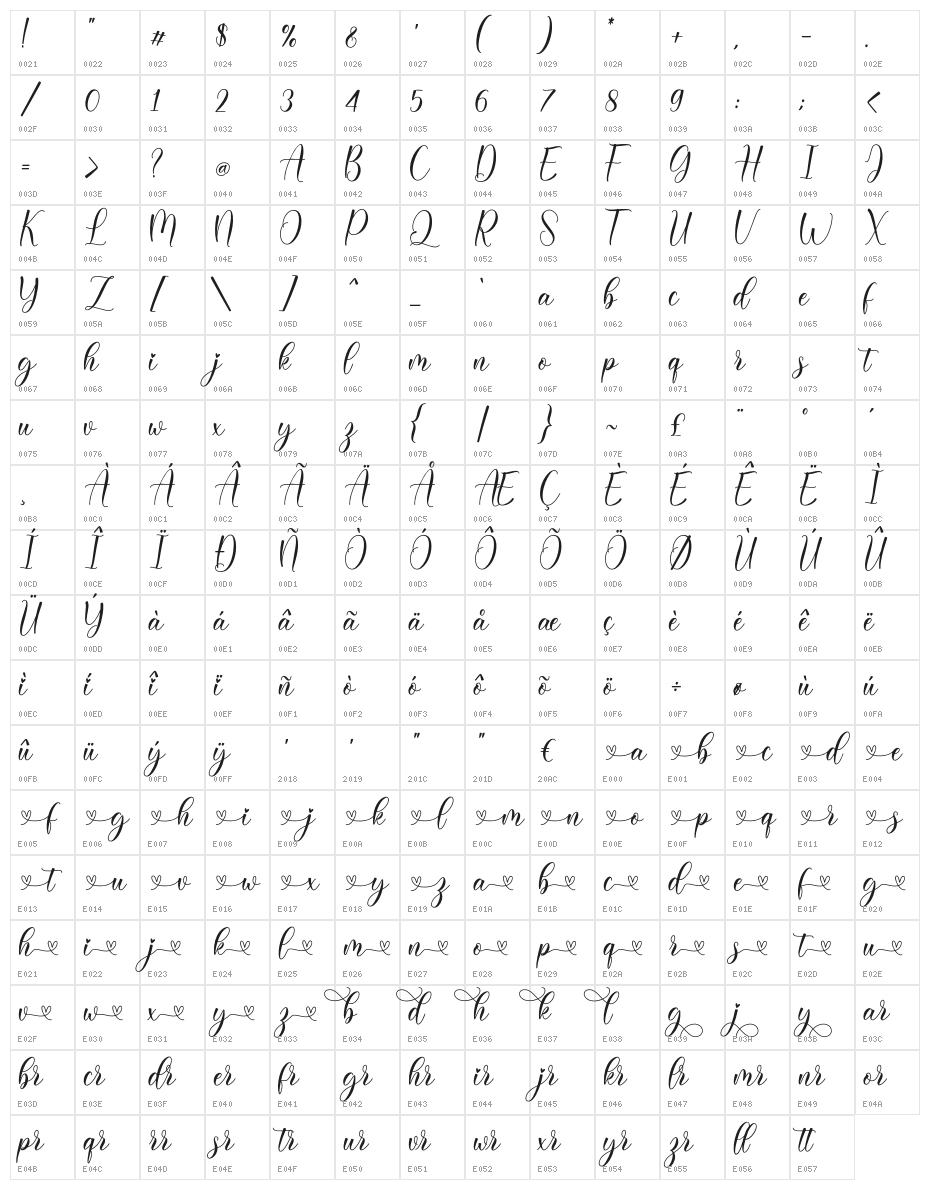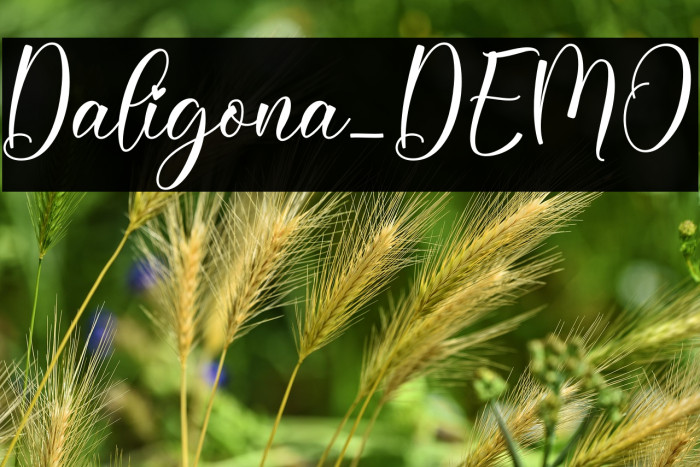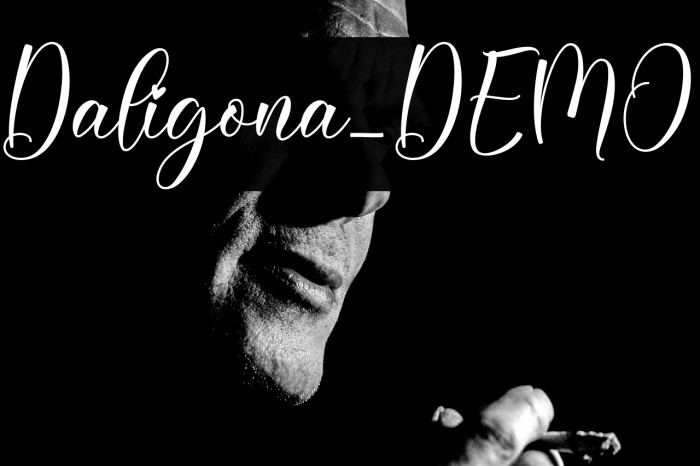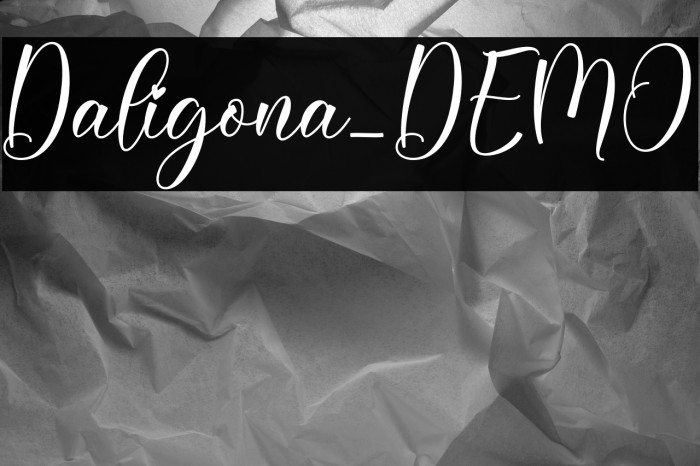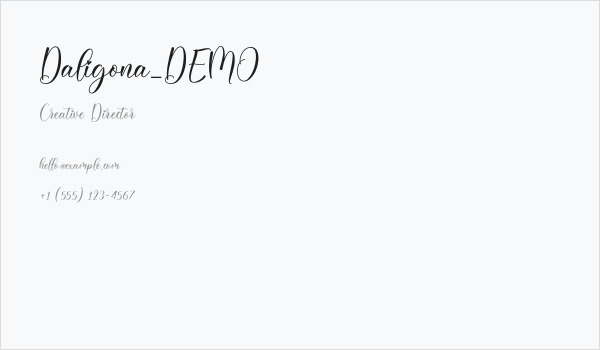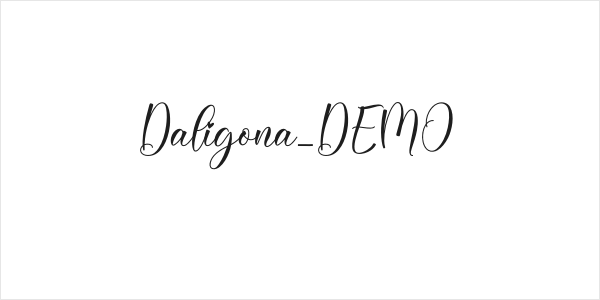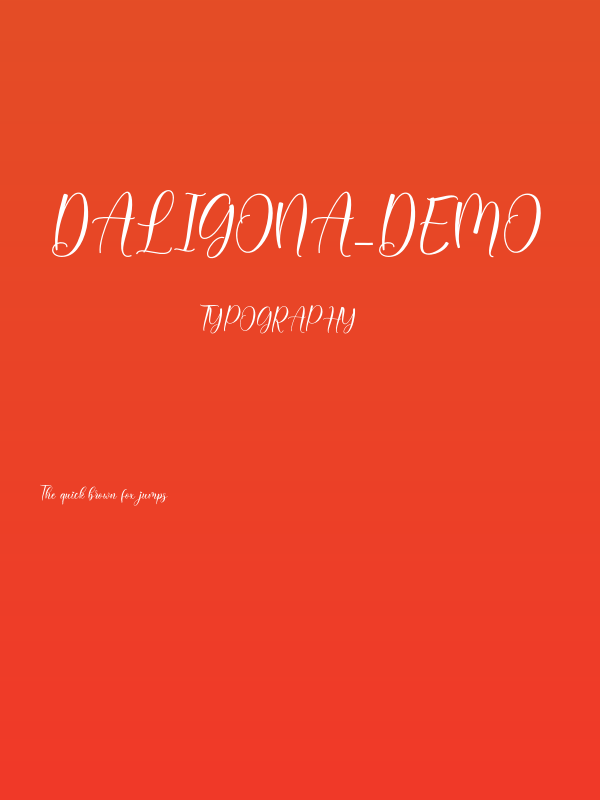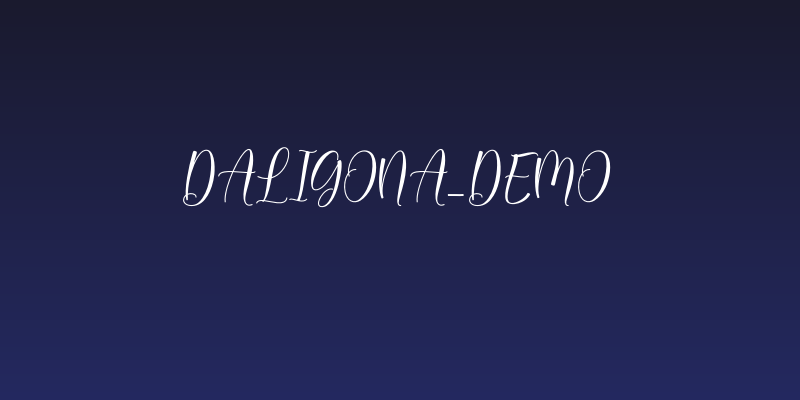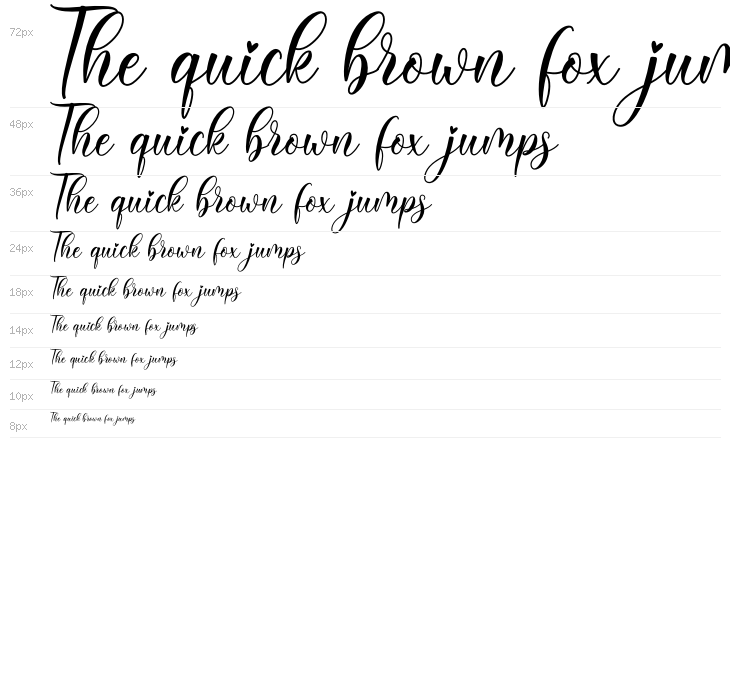
Daligona_DEMO Font
Daligona_DEMO Description
This font features an elegant and flowing script style, characterized by its smooth, cursive strokes and graceful curves. The uppercase letters are tall and slender, with a slight slant that adds a dynamic feel. The lowercase letters maintain a consistent flow, with some letters featuring loops and flourishes that enhance its decorative appeal. The numerals are styled to match the script, maintaining the same fluidity and elegance. Special characters are designed with similar attention to detail, ensuring they blend seamlessly with the overall aesthetic. This font exudes a sense of sophistication and charm, making it ideal for projects that require a touch of elegance.